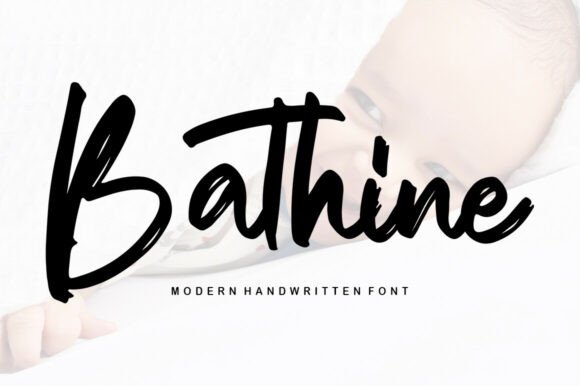
Bathine: Elegant Script Font for Creative Projects
Imagine a font that feels like a whispered secret, a graceful stroke of ink that instantly elevates any design from ordinary to extraordinary. That’s the magic of Bathine, a carefully crafted script font designed to infuse a touch of sophistication and artistry into your creative work. Whether you're a designer, a social media enthusiast, or a DIY crafter, this typeface offers a beautiful solution for projects that demand a personal, elegant flair.
At its core, Bathine is a premium display font that bridges the gap between classic calligraphy and modern typography. Its flowing, handwritten character is balanced with clean lines, ensuring it remains both visually striking and highly legible. This makes it a versatile creative font suitable for a wide array of applications, far beyond just simple text. It’s a design asset that can help define a mood, tell a story, and create a lasting impression.
Where Can You Use This Elegant Script Font?
The true value of a well-designed typeface lies in its adaptability. Bathine shines in scenarios where personality and polish are key. Consider using it for:
- Brand Identity & Logo Design: Craft a memorable logo for boutiques, cafes, lifestyle brands, or artisan products. A script font like Bathine can convey warmth, authenticity, and luxury.
- Social Media Graphics: Make your Instagram stories, quote graphics, and promotional posts stand out. It’s perfect for creating eye-catching headers and elegant overlays that stop the scroll.
- Editorial & Packaging Design: Add a sophisticated touch to magazine layouts, book covers, or product packaging. It works beautifully for titles, pull quotes, or special feature headings.
- Invitations & Stationery: Design stunning wedding invitations, greeting cards, or event programs. The font’s graceful flow lends a personal, handcrafted feel to any formal or celebratory document.
- Poster & Web Design: Use it for impactful headlines on posters or as a decorative element on websites, especially for hero sections or call-to-action phrases that need a touch of elegance.
Tips for Choosing and Using Script Fonts Like Bathine
Integrating a script font into your projects requires a thoughtful approach to ensure it enhances rather than overwhelms your design. Here are some practical tips:
First, always consider readability. While Bathine is designed for clarity, it’s best used for shorter text blocks like headlines, logos, or accent words. Pair it with a clean sans serif font or a simple serif font for body text to create a balanced and readable font pairing.
Second, match the mood. The elegant, flowing nature of this script font suits projects aiming for a romantic, luxurious, artisanal, or feminine aesthetic. Ensure it aligns with your overall brand identity and message.
Third, test it thoroughly. Before finalizing a design, check how the font renders at different sizes and on various backgrounds. Look at the available glyphs and alternates—many premium fonts include stylistic alternates that can add unique character to your work.
Choosing the right typeface is a fundamental step in effective visual communication. A font like Bathine does more than just display words; it contributes to the emotional tone, strengthens brand recognition, and adds a layer of professional polish. It’s an investment in your design toolkit that can transform simple ideas into cohesive, beautiful, and memorable visual stories. When your project calls for a blend of artistry and clarity, exploring a thoughtfully designed script font is a worthwhile endeavor.